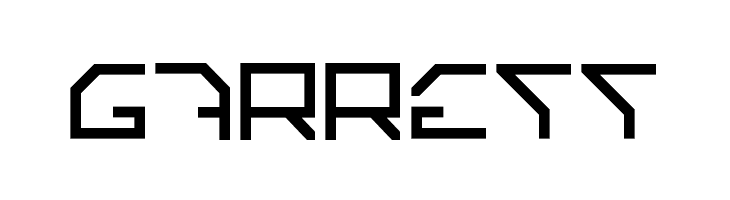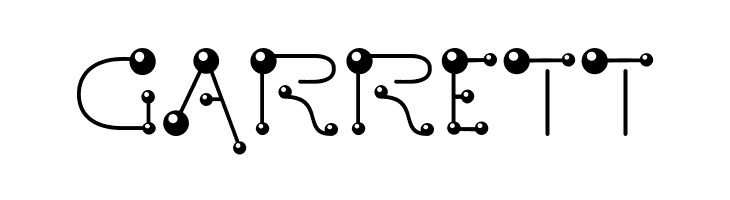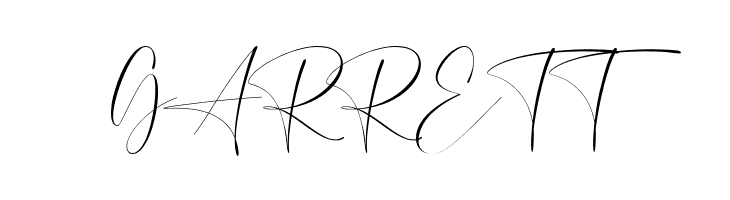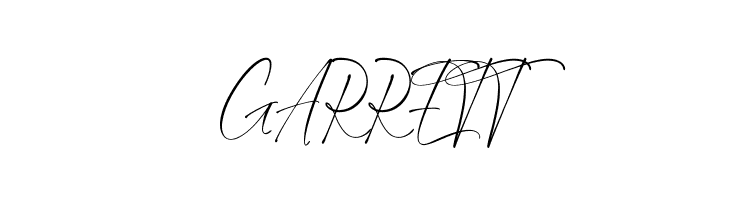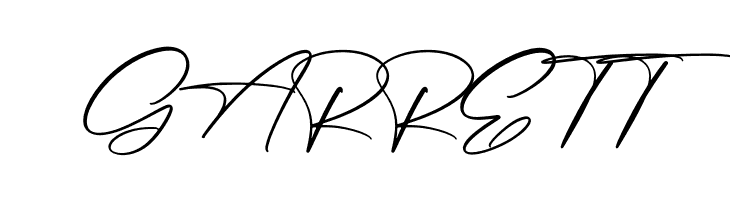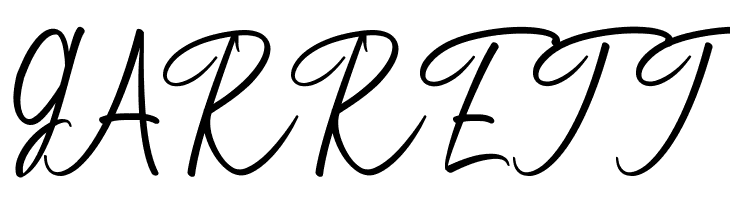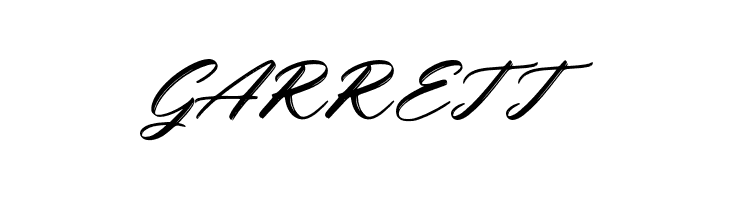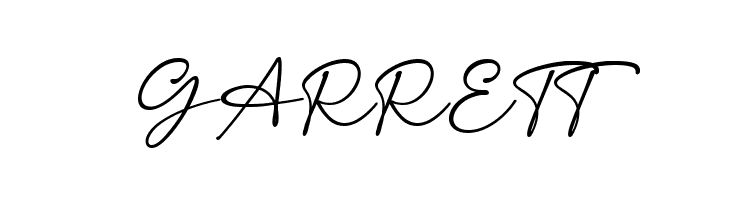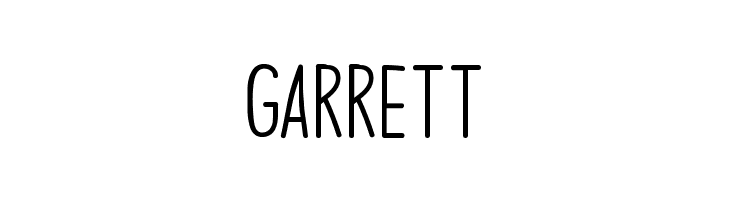
An ornate and decorative font with intricate flourishes, ideal for luxurious designs.
A playful and decorative font with circular dots at stroke ends.
An elegant and sophisticated script font with flowing, cursive strokes.
An elegant and flowing script font with delicate, elongated strokes.
An elegant, cursive font with fluid, interconnected strokes.
A flowing, elegant cursive font with graceful loops and curves.
An elegant cursive script font with flowing, graceful curves.
A graceful and sophisticated script font with flowing, cursive letterforms.
A tall, narrow, handwritten sans-serif with rounded ends.